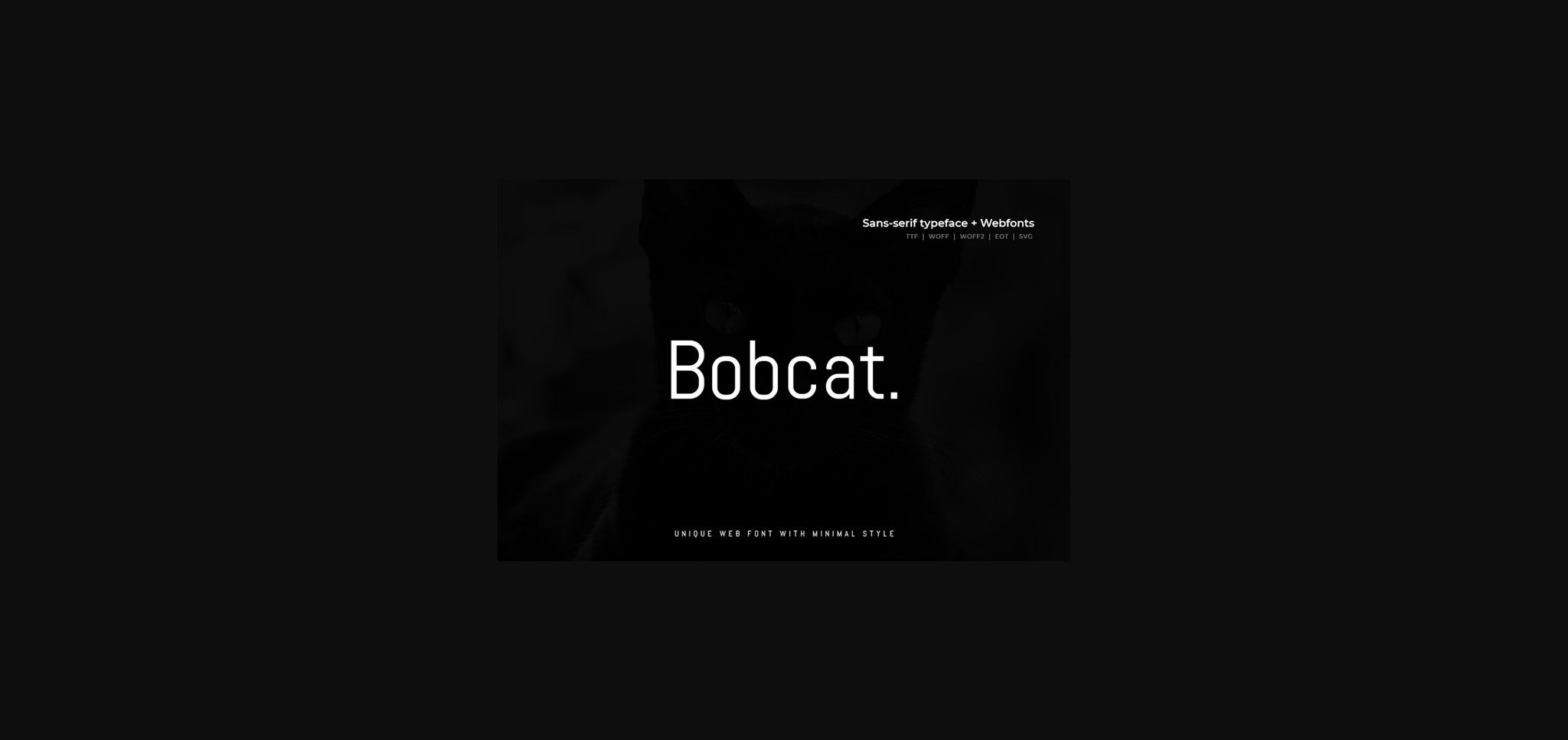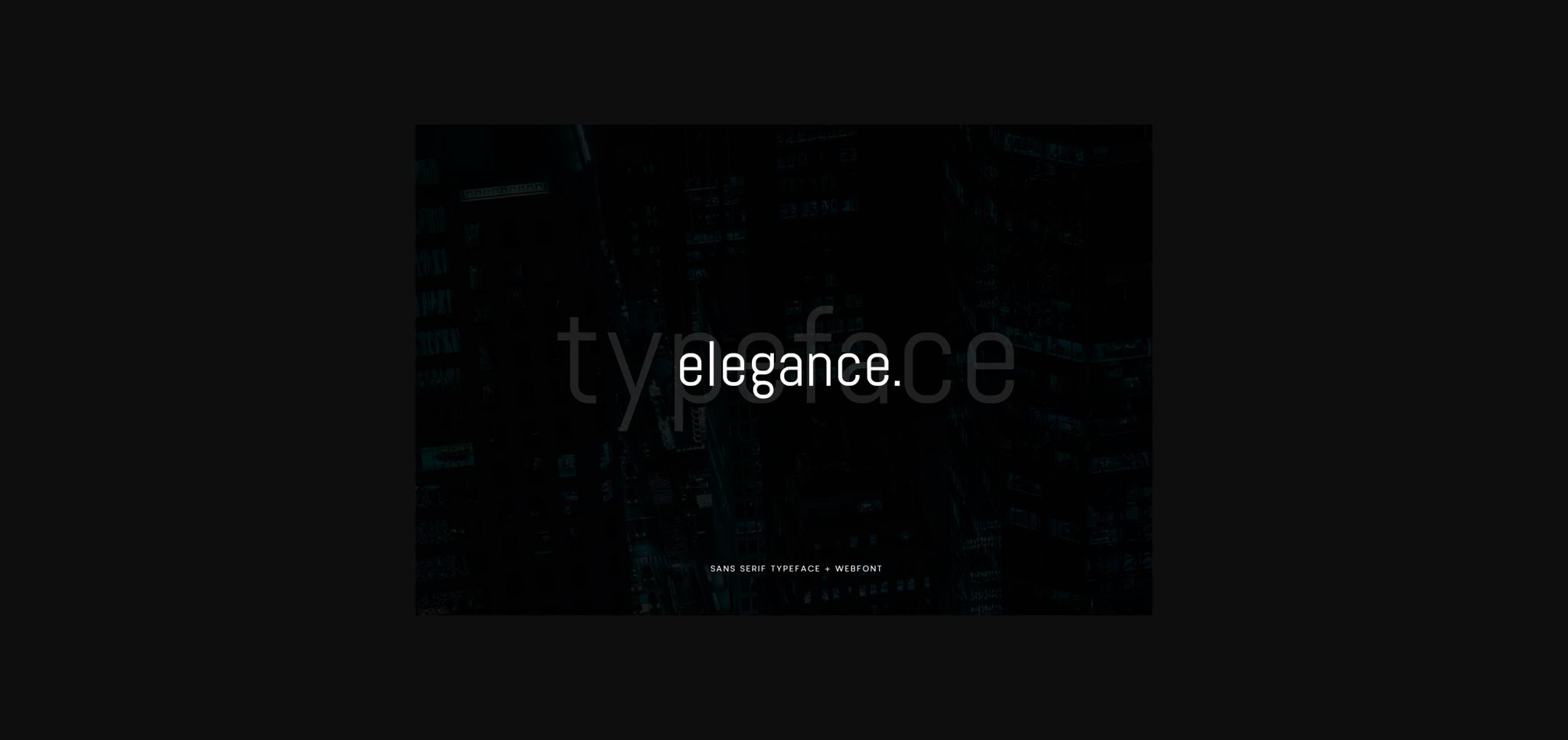
Bobcat is a clean and simple sans serif font. It will complement any design that you wish to develop, be it logos, quotes, posters, headlines and so much more!